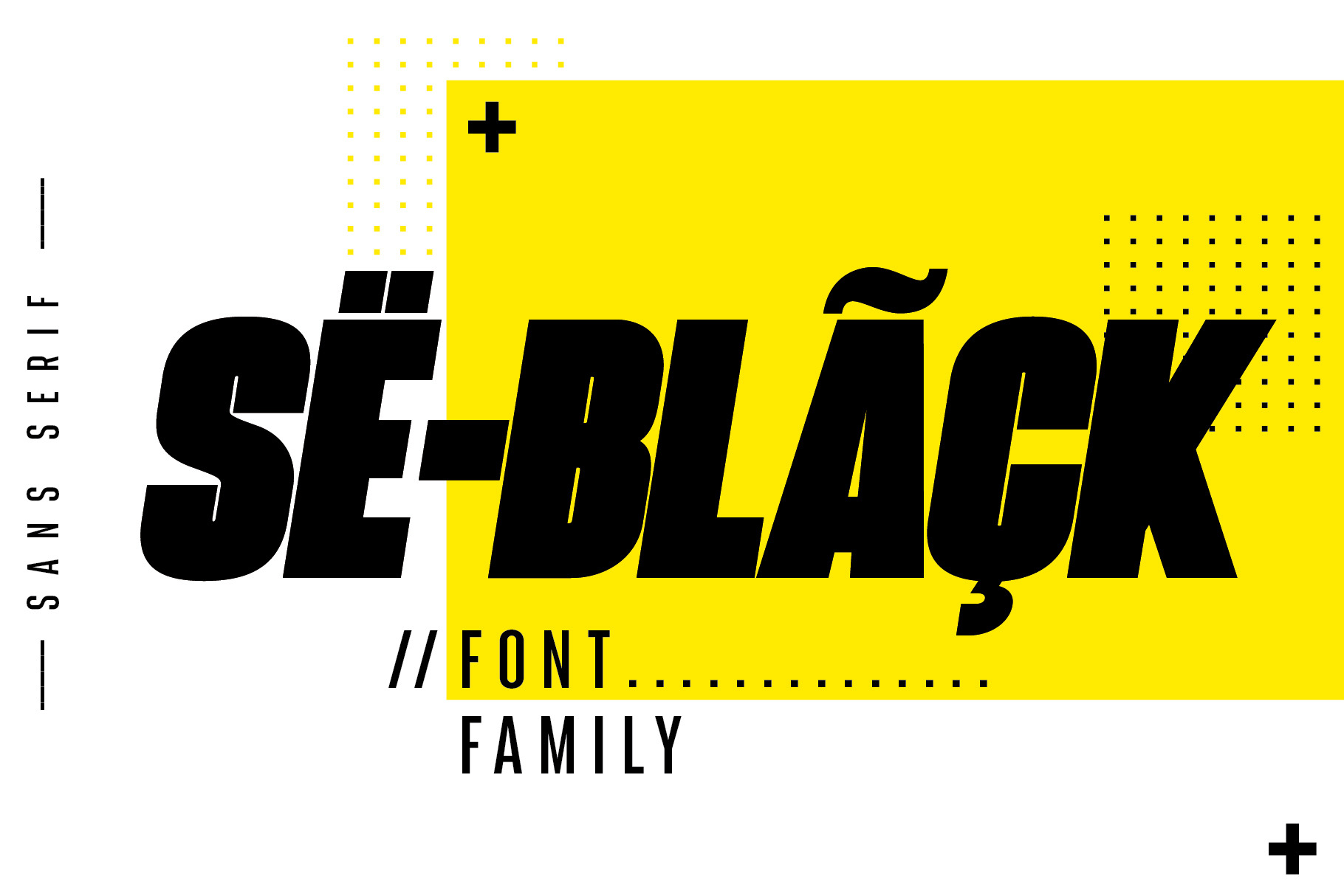
SeBlack Sans Serif Font family
Seblack is sans serif font, with Lowercase come in two styles, regular and italic. also available in 10 weight,
- 10 Weights
- 2 Style Regular and Italics